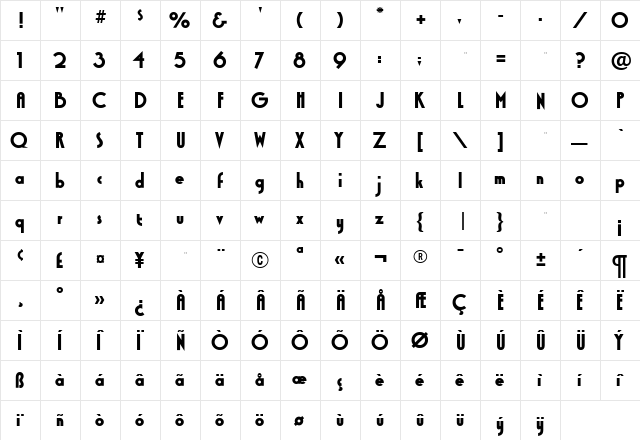
XctasySansRR ExtraBold Regular
Design Context for XctasySansRR ExtraBold Typeface
XctasySansRR ExtraBold is a composed and adaptable typeface that performs quietly and consistently across a wide range of design contexts. The heavy weight commands attention and anchors typographic hierarchies.